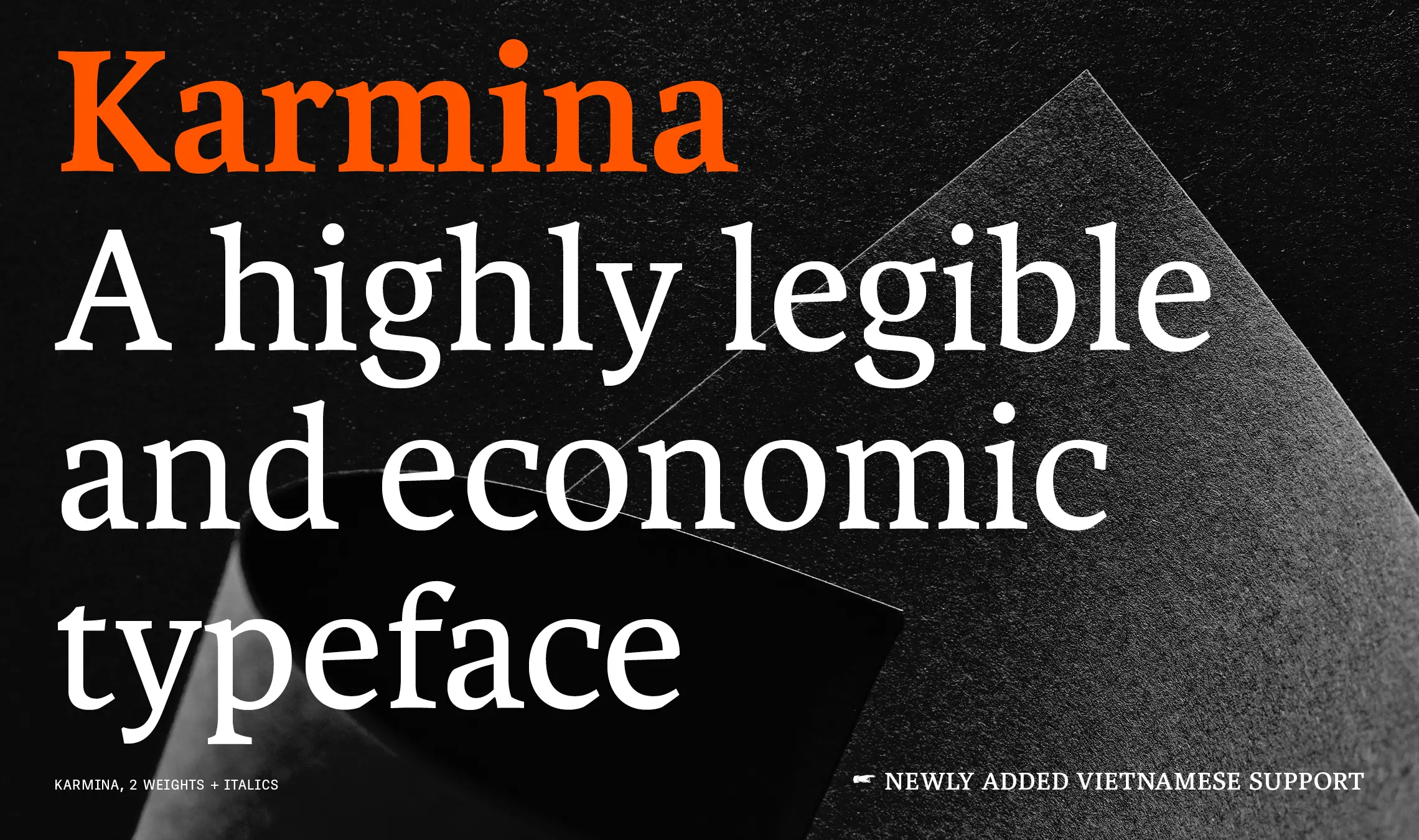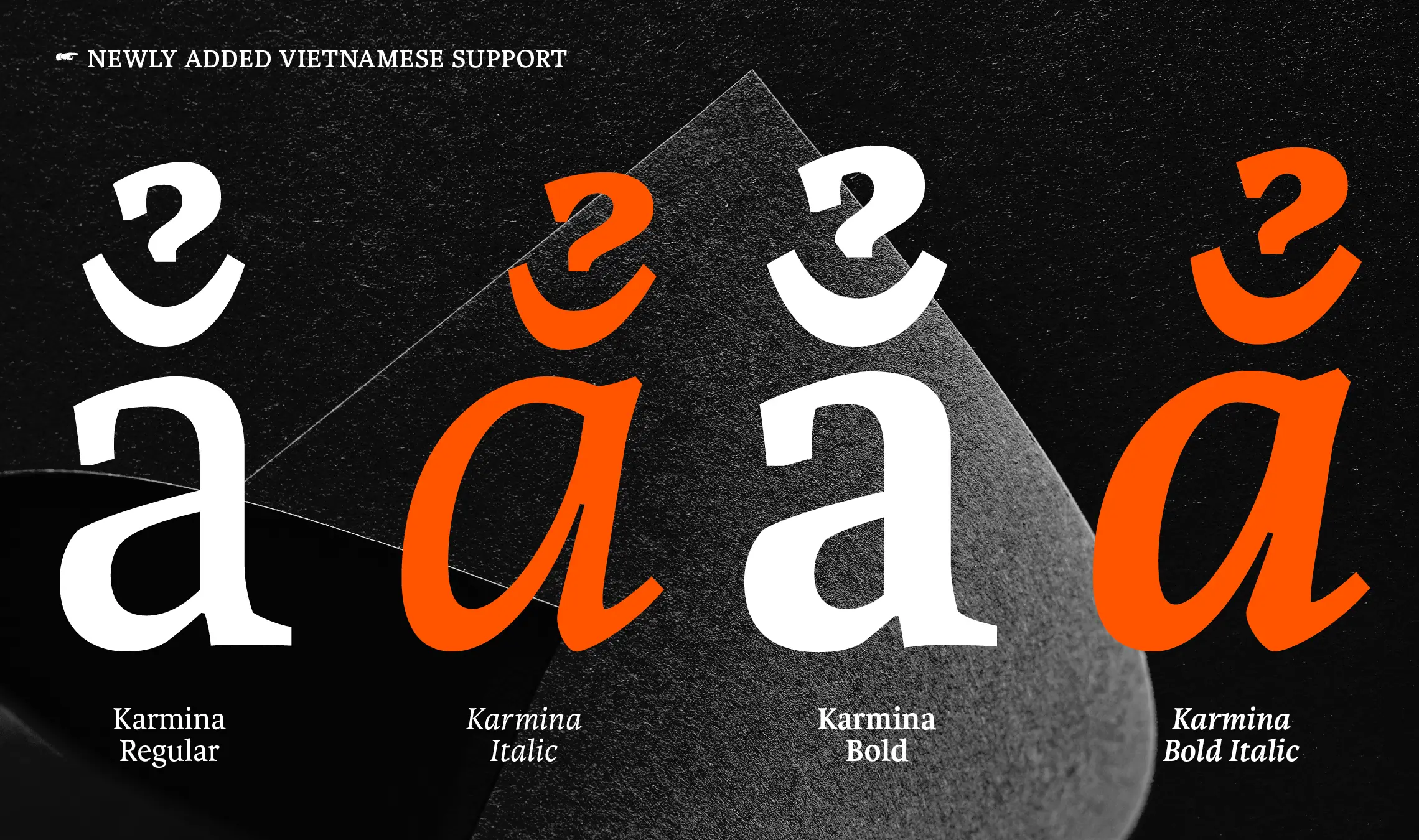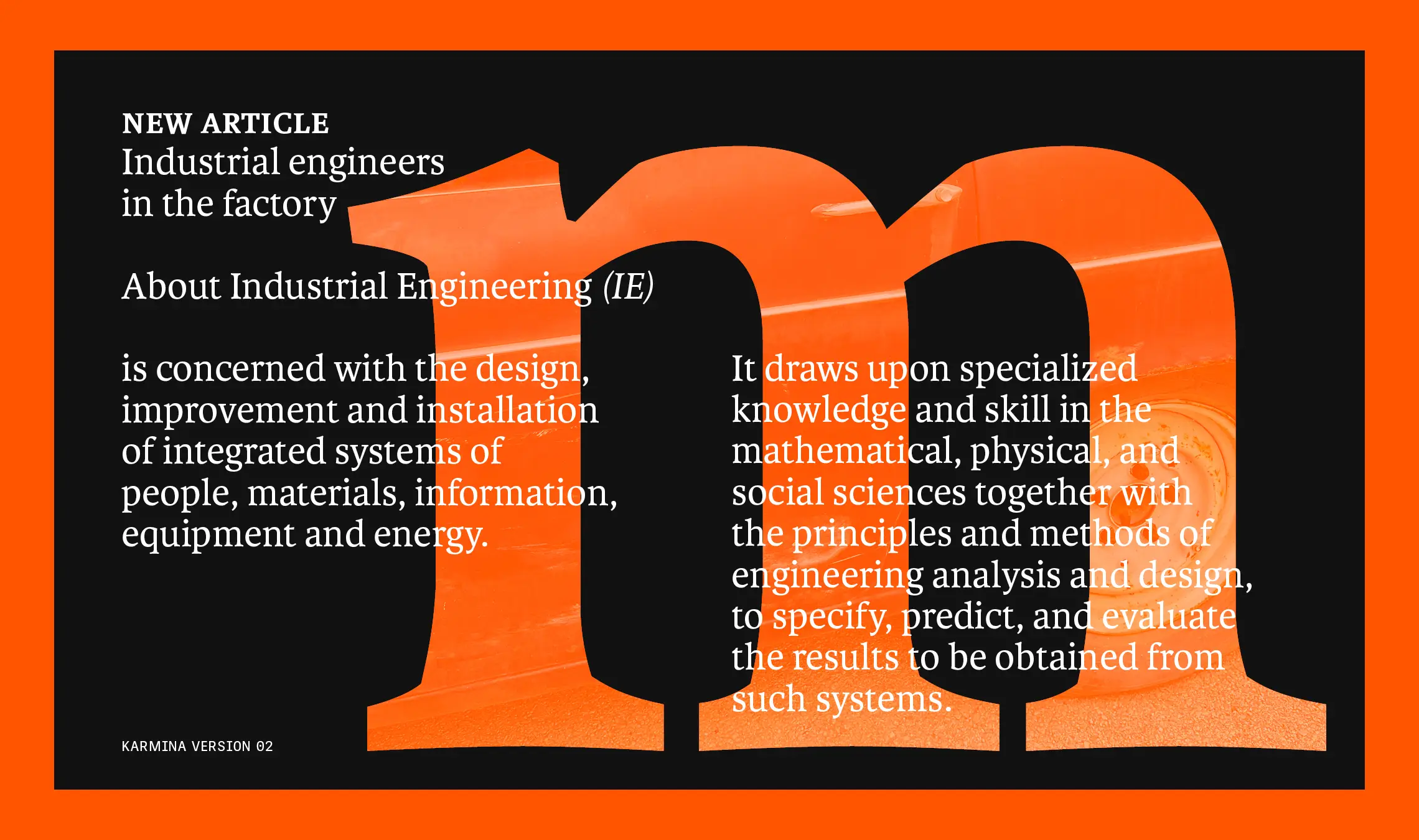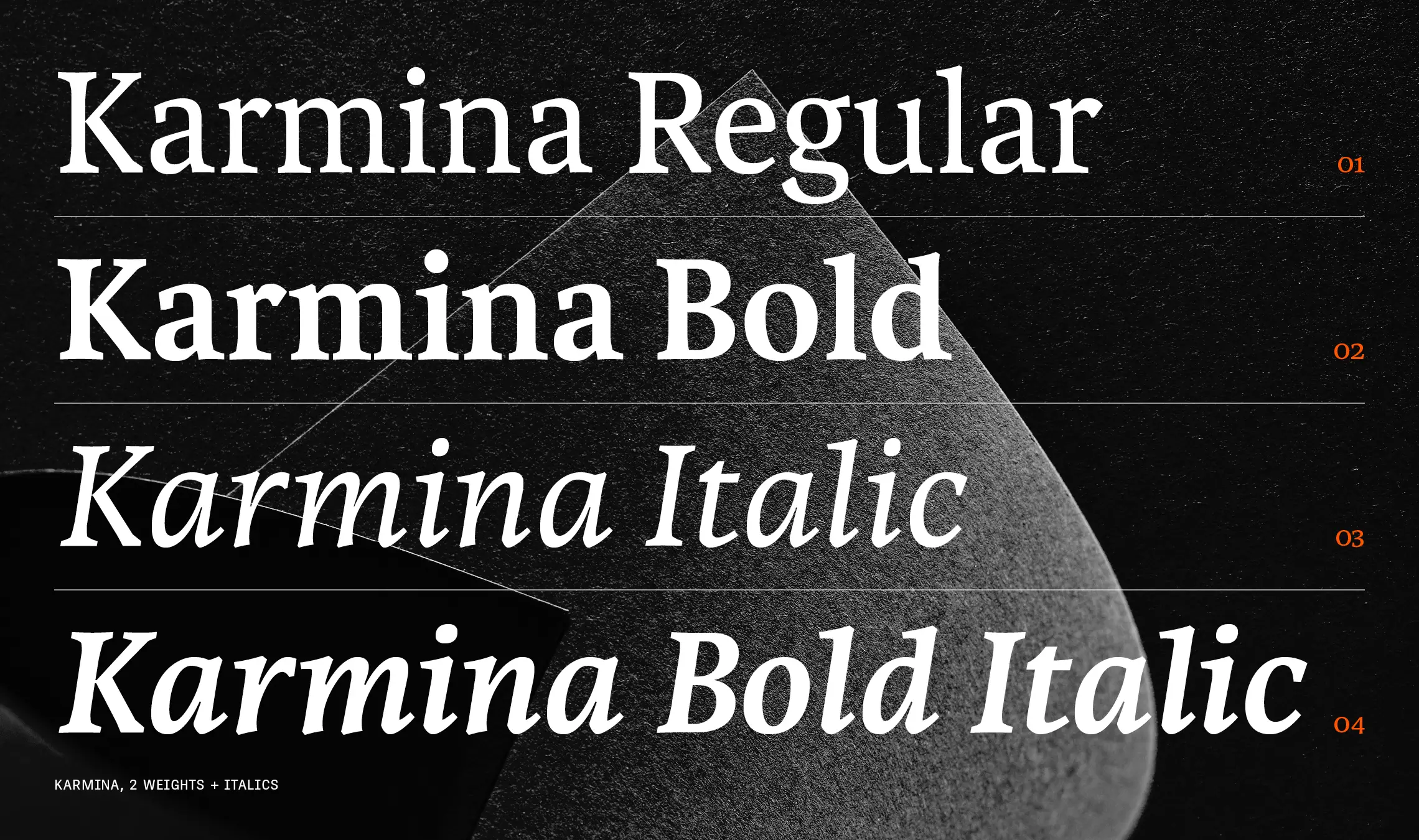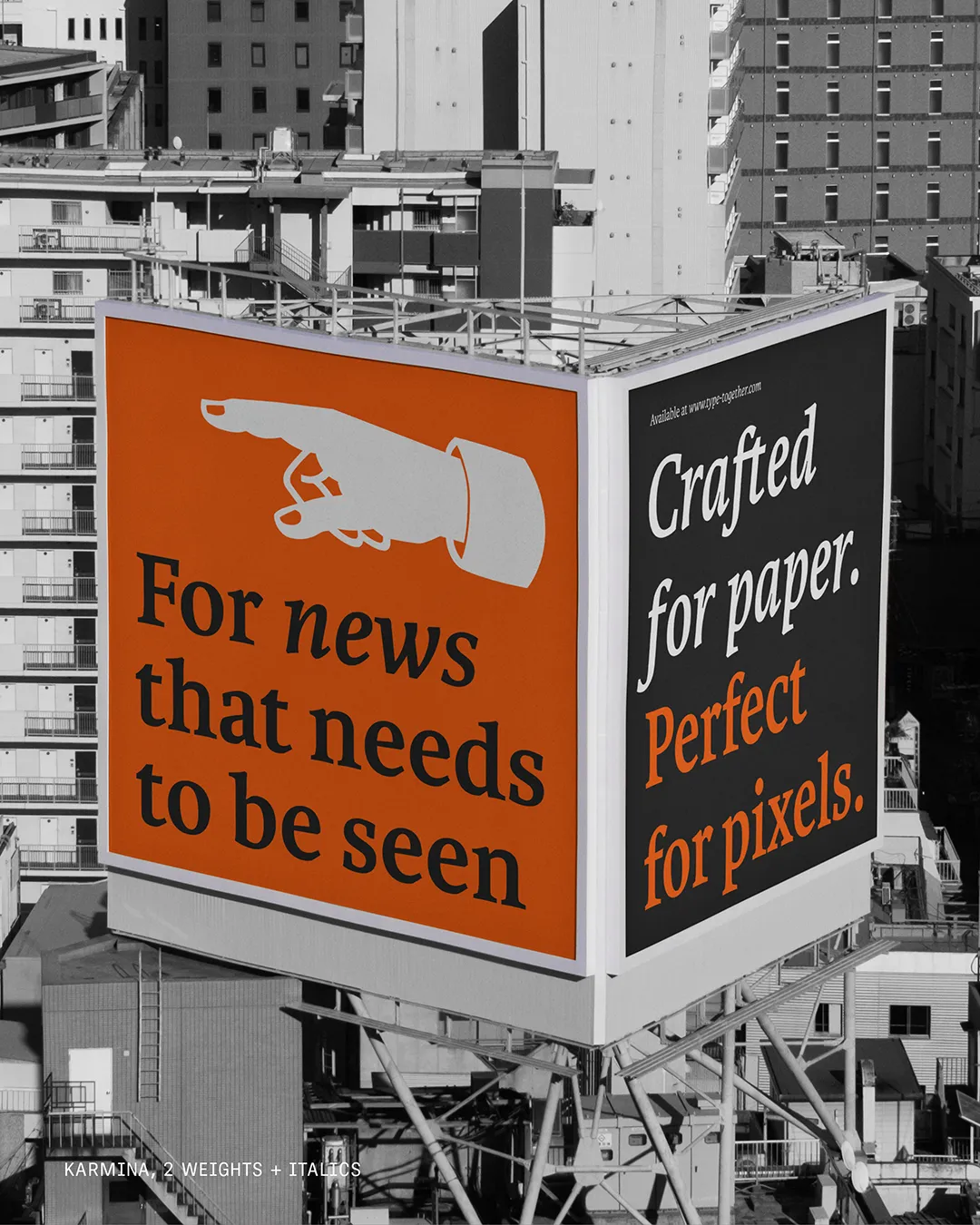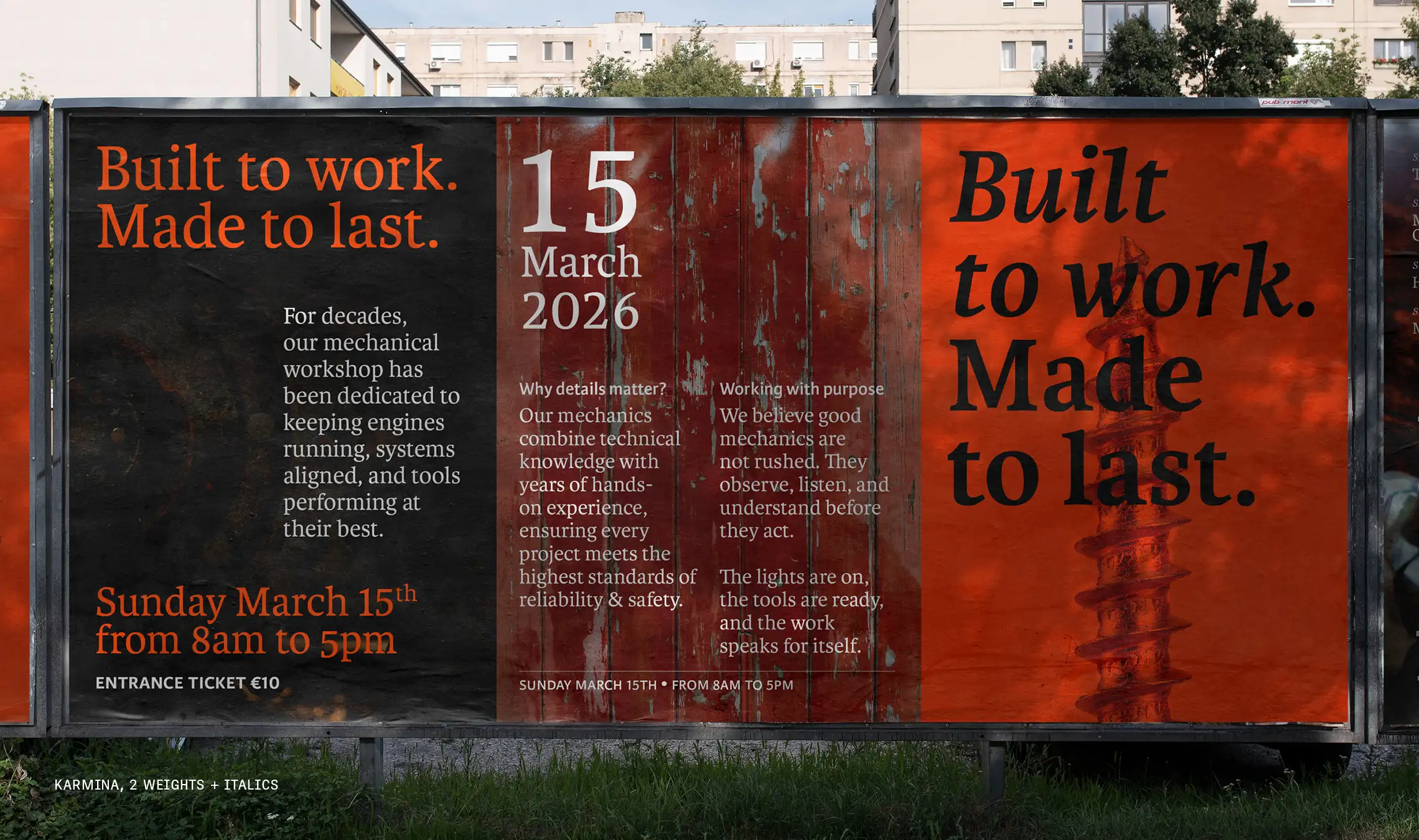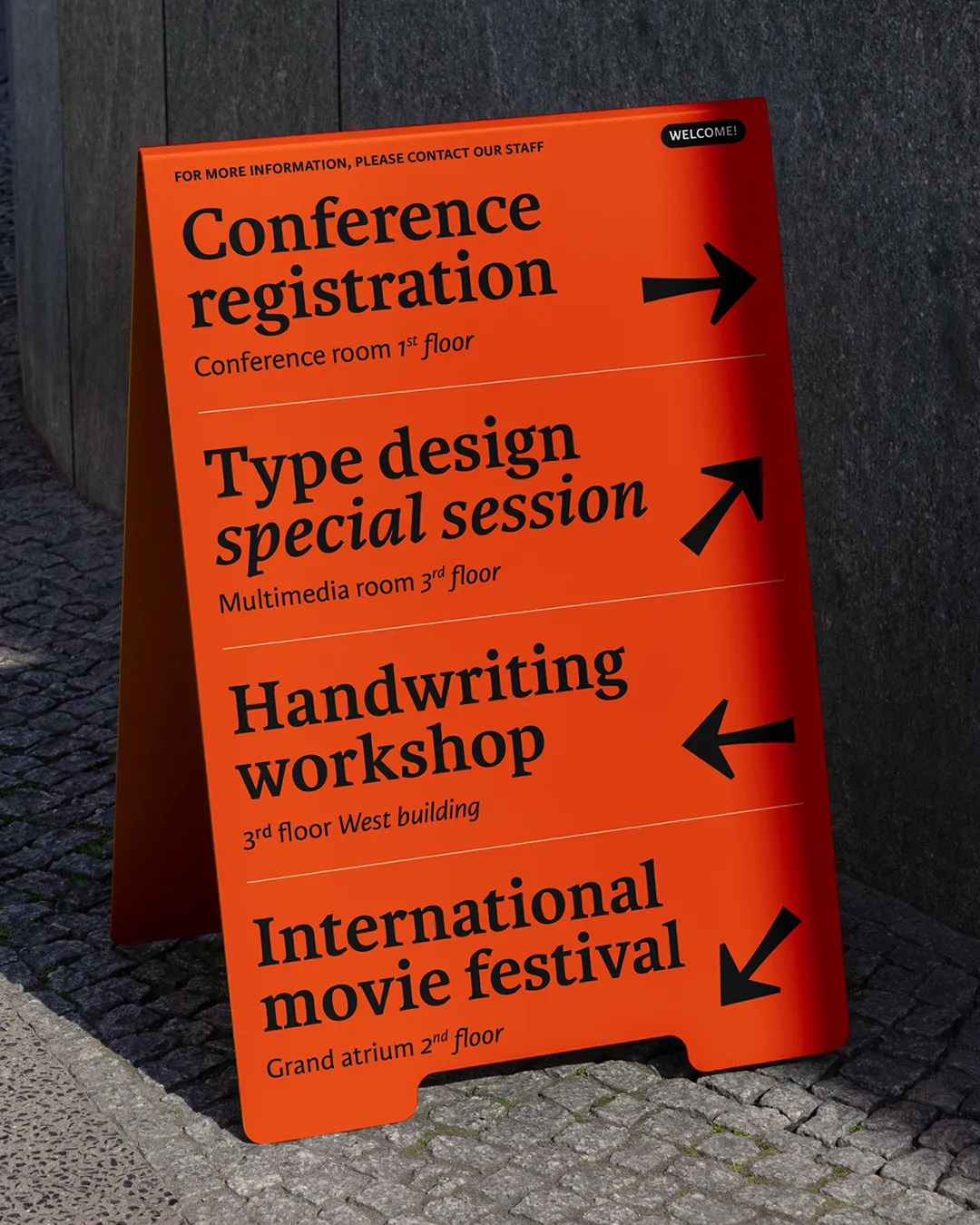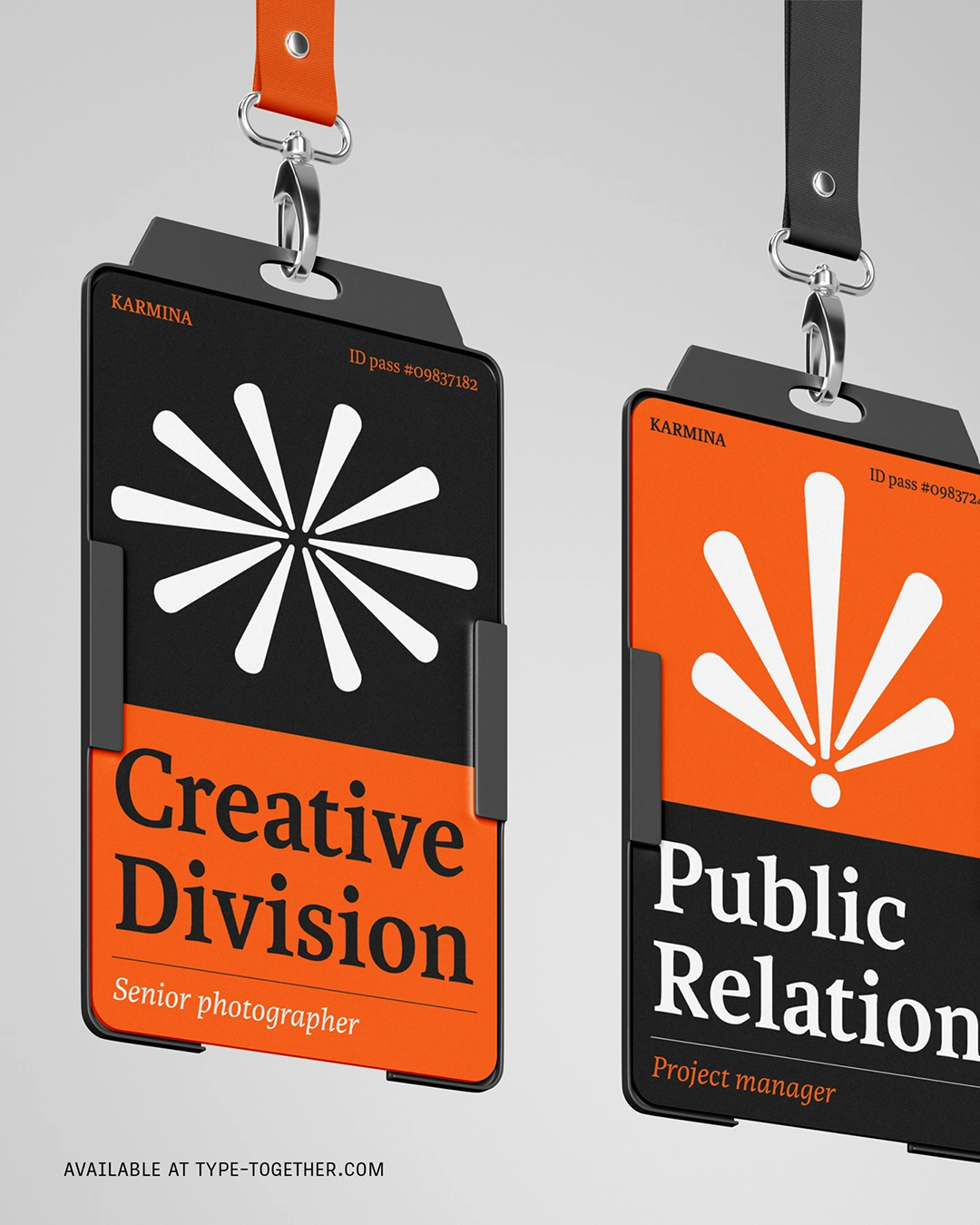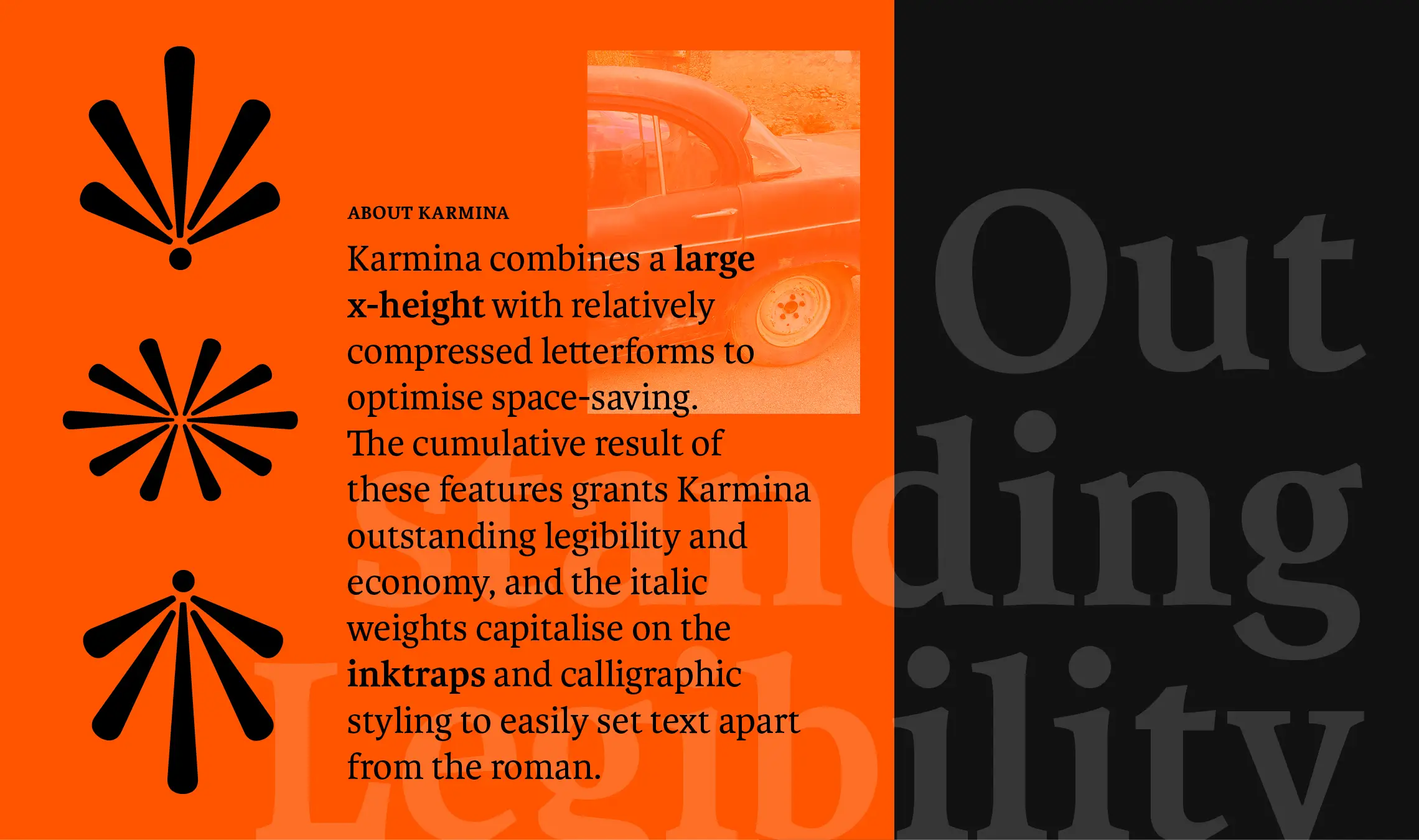
Karmina, fresh for 2026
Karmina, our beloved editorial all-rounder gets full Vietnamese support and added glyphs – and the update is free for licence owners
Karmina is an editorial workhorse, and it was released in 2007 as a font that could handle the worst printing conditions: low quality papers, high printing speed with web presses, and variations in the ink level of the printing press. The more opportunity for printing to go wrong, the more Karmina does to make it right — the right shapes, right sturdiness, and the right tone with which to approach the reader.
For the 2026 update, we’ve added 210 glyphs (for a total of 1,078), full Vietnamese support, new glyphs for currency symbols such as the Turkish lira, Bitcoin, and Vietnamese đồng (including old style and lining). German speakers will appreciate the fact that the ß has been added in both capital and small caps, for example. Intelligent fractions have also been added, as have minor additions and fixes to spacing and kerning.